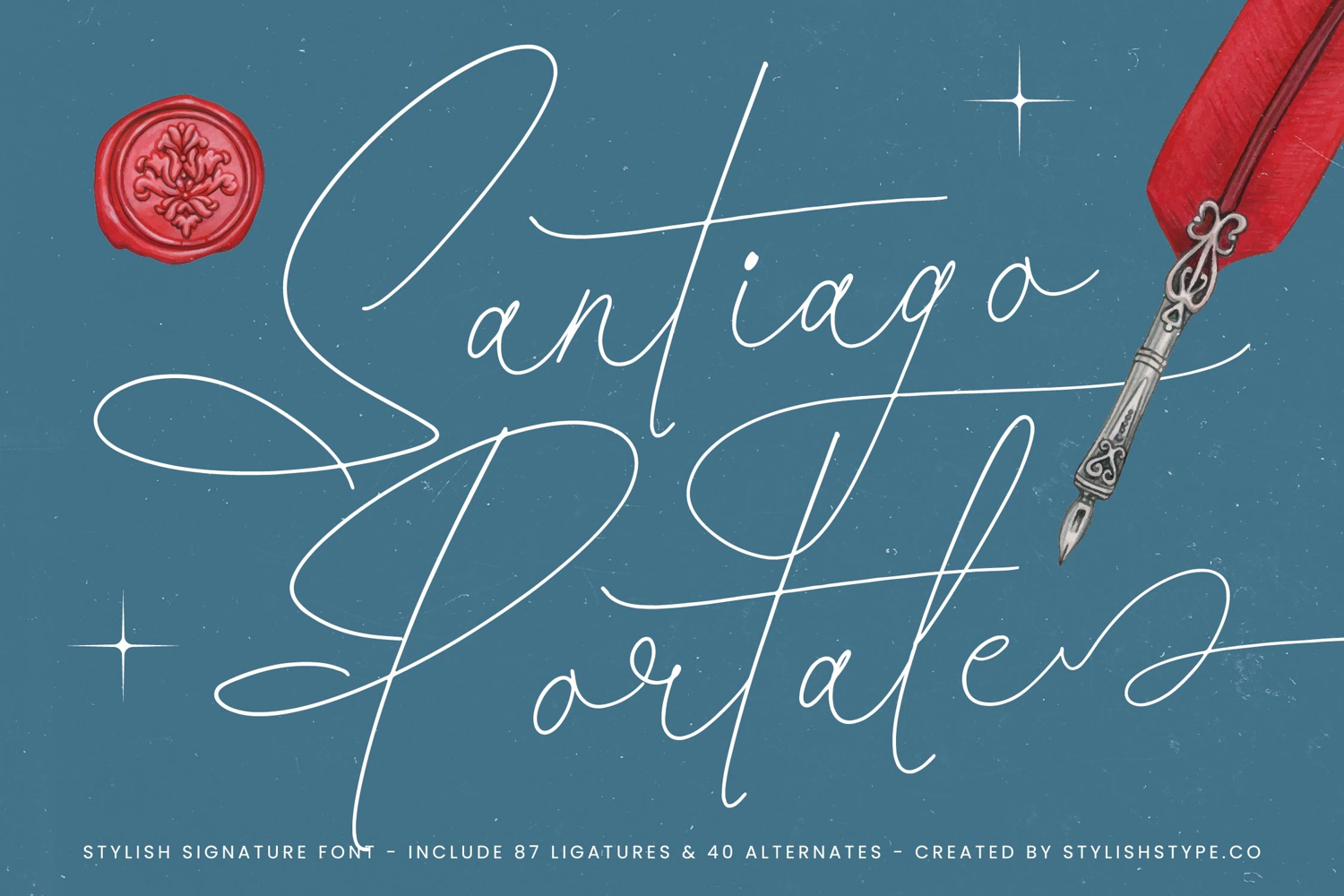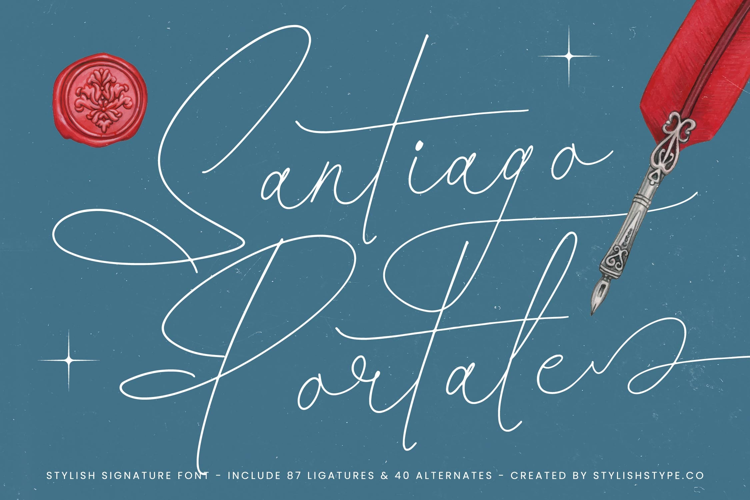
Santiago Portale - Stylish Signature Font
Santiago Portale
Santiago Portale Italic
Santiago Portale - Stylish Signature Font
In editorial and publishing, Santiago Portales adds sophistication and artistry. Magazines, book covers, event programs, and invitations are enhanced by its fluid and elegant rhythm. It creates editorial layouts that are visually captivating yet highly legible, turning every heading into a design centerpiece.
For web typography, this signature script integrates seamlessly across blogs, portfolios, online shops, and social media platforms. Its elegant handwritten character ensures that digital media projects communicate authenticity, artistry, and modern refinement, helping brands and creators stand out in the digital landscape.
Santiago Portale also works beautifully in advertising and marketing. From posters, promotional campaigns, and billboards to product packaging and business cards, it ensures designs capture attention while maintaining an elegant, high-class appeal. It’s particularly effective for advertising that requires impact and sophistication.
This typeface is a natural choice for wedding and event stationery. Its romantic alternates and expressive swashes elevate invitations, greeting cards, signage, and keepsakes, making them timeless and memorable. It is especially suited for wedding branding and formal events that demand romance and refinement.
In packaging design, Santiago Portales enhances products ranging from perfumes and jewelry to artisanal goods and gourmet items. Its handwritten luxury adds storytelling and depth, ensuring that packaging communicates craftsmanship, exclusivity, and authenticity.